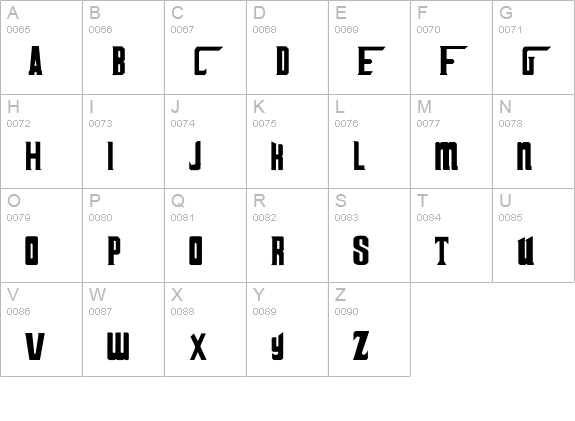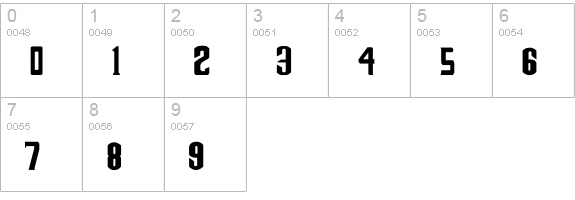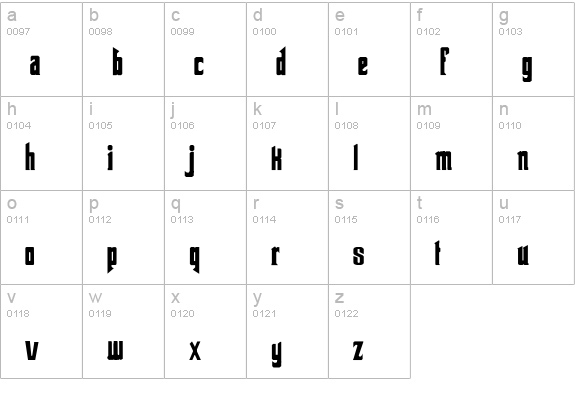
Introducing The Godfather font - a timeless and powerful typeface that will bring an air of sophistication and authority to any design project. Inspired by the iconic film series, this font exudes a sense of elegance and dominance, much like the characters it pays homage to. With its bold and commanding presence, The Godfather font is perfect for headlines, logos, movie posters, book covers, and other creative endeavors that require a touch of grandeur. Its sleek and sharp letterforms captivate the eye, while the carefully crafted serifs add a touch of classic refinement. But what sets The Godfather font apart from the rest is its unique blend of strength and versatility. It effortlessly marries tradition with modernity, making it a go-to choice for designers seeking to make a bold statement while maintaining a timeless appeal. And the best part? The Godfather font is freely available to download at FontsMarket.com. This means that you can add this majestic typeface to your collection without breaking the bank. Whether you're a professional designer, a creative enthusiast, or simply a fan of the film series, this font offers you the opportunity to infuse your projects with the same level of power and sophistication as the legendary Godfather himself. So, embrace the essence of classic cinema and let The Godfather font be the secret weapon in your design arsenal. Download it for free at FontsMarket.com and elevate your creations to a whole new level of greatness.